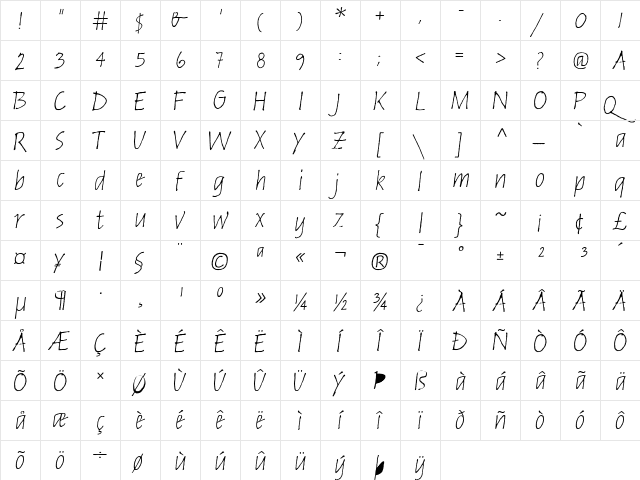
AIRussellInformalOblique Italic
Design Context for AIRussellInformalOblique Typeface
AIRussellInformalOblique is a composed and adaptable typeface that performs quietly and consistently across a wide range of design contexts. The dynamic lean of this cut emphasises speed and emphasis in any layout.
Pro Tip: Try AIRussellInformalOblique for annotation and caption copy alongside an upright companion — the contrast in angle creates a dynamic but ordered typographic system.